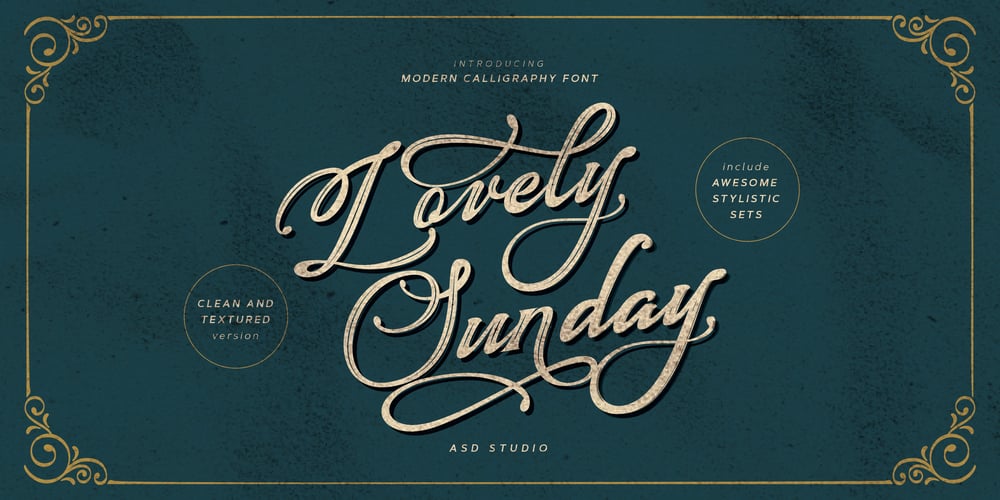
Lovely Sunday Font Family was designed by Ghazi and published by Asd Studio. Lovely Sunday contains 2 styles and family package options. Introducing the new font Lovely Sunday – Modern Calligraphy Font. This font suitable for use in a variety of design fields, such as event advertisements, vintage design, product promotions, mug design, book titles, activity titles, logos, and others. This font can when paired with serif font types will make your design project more beautiful and perfect. Features:- Uppercase- Lowercase- Number & punctuations- Multilingual Accents- 3 StylisticSet- Contextual Alternates- PUA encoded I highly recommend using a program that supports OpenType featuresand Glyphs panels such as Adobe Illustrator, Adobe Photoshop, or CorelDraw, so you can see and access all Glyph variations. This font is encoded with Unicode PUA, which allows full access toall additional characters without having special design software. Mac users can use Font Book, and Windows users can use Character Map to view and copy one of the extra characters to paste into your favorite text editor/ application. I hope you enjoy the font, thank you.